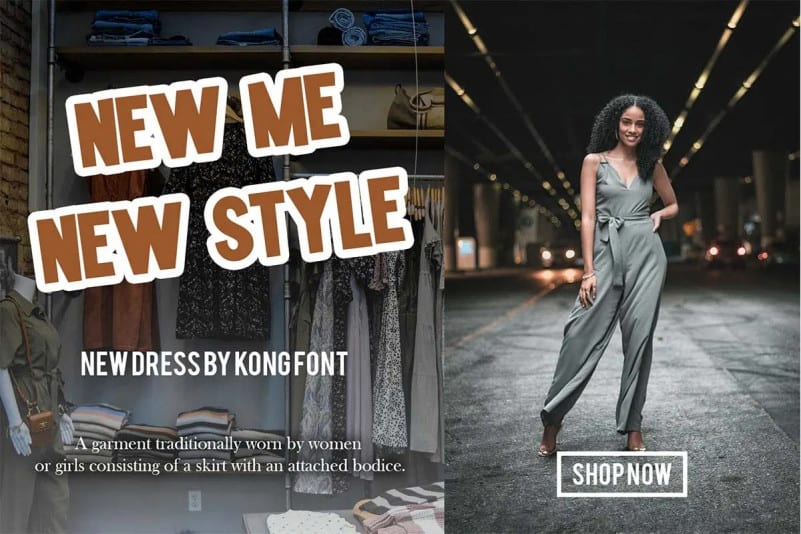
Mintmolly Display Font is multipurpose and unique display font, you can use it in modern and vintage design. This font will suitable for any project, like branding, print template, logo and etc.
Mintmolly include uppercase and lowercase, ligature and alternate style,and also multilingual support.